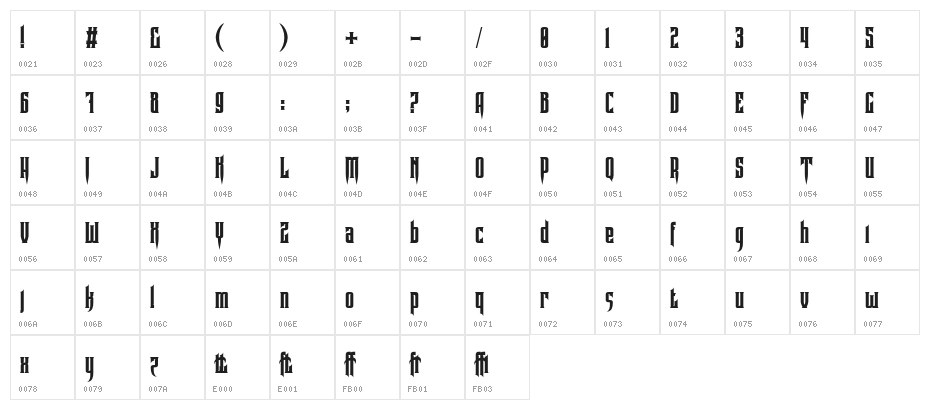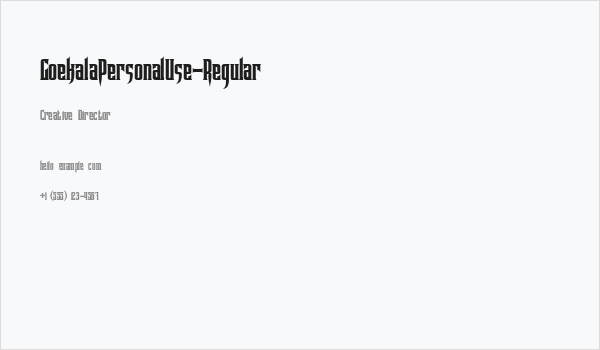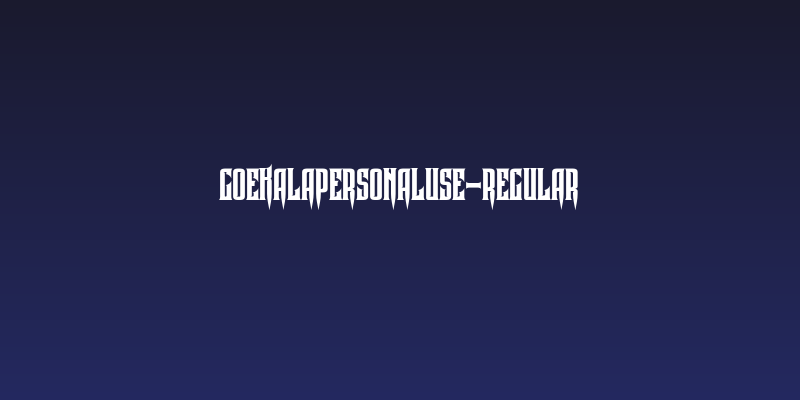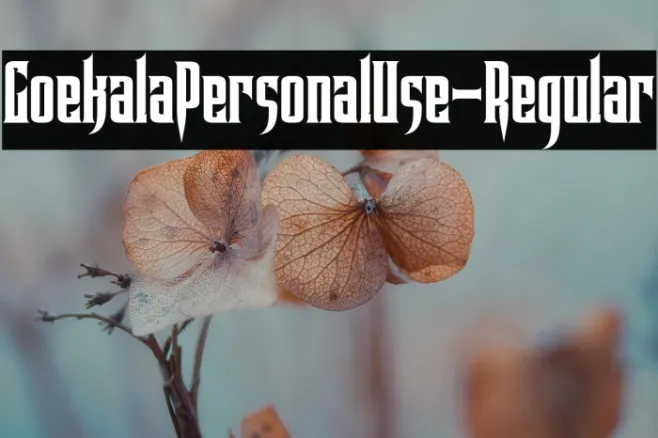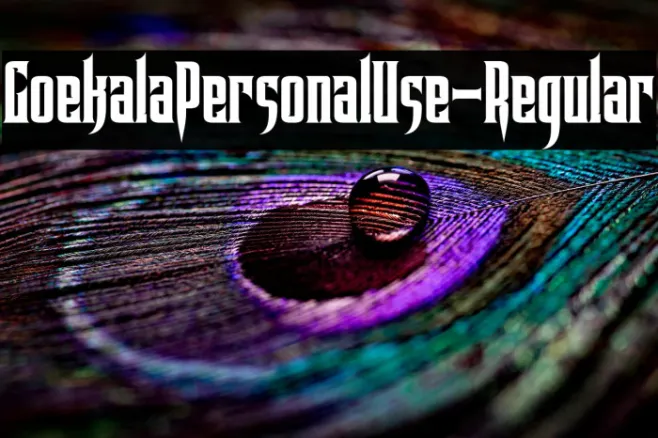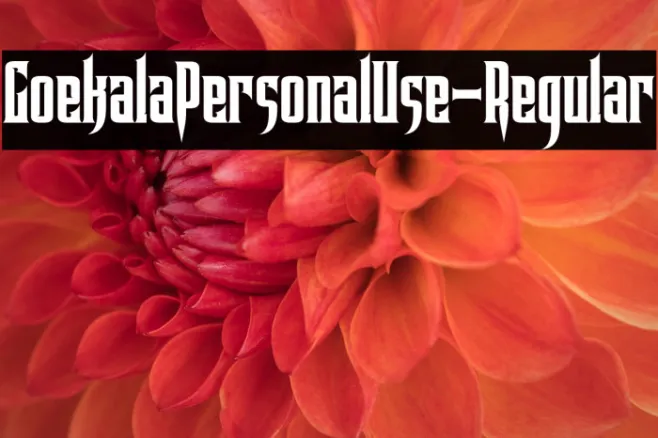
GoekalaPersonalUse-Regular Font
GoekalaPersonalUse-Regular Description
This font features a bold and striking design with sharp, angular edges and a gothic-inspired aesthetic. The uppercase and lowercase letters are characterized by their tall, narrow forms and pointed serifs, giving them a dramatic and intense appearance. The numbers and special characters maintain this theme, with unique shapes that enhance the overall visual impact. The font's style is reminiscent of medieval or fantasy themes, making it suitable for projects that require a bold and distinctive look.
| Overall Style | Gothic, Dramatic |
| Use Case | Logos, Posters, Headlines |
| Proposed Projects | Ideal for fantasy-themed designs, band logos, posters, and video game titles. |